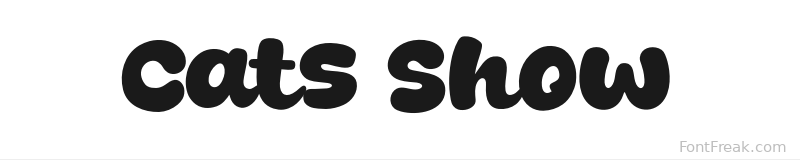
Cats Show
The Cats Show font by Syaf Rizal is a delightful display typeface that embodies a playful and whimsical character, making it ideal for a variety of creative projects. This font features a bold stroke weight with a consistent, rounded shape that ensures high visibility and immediate engagement. Its slightly irregular edges add a charming touch, reminiscent of the playful nature of cats, while maintaining legibility. The spacing is generous, allowing for easy reading, which is a valuable attribute for any design.
Designed to capture attention, the Cats Show font is particularly suited for projects such as children's book covers, pet-related branding, event flyers, and social media graphics. Its fun and inviting aesthetic makes it perfect for promoting cat shows, pet adoption events, or even quirky cafes that cater to animal lovers. Small business owners who wish to create a friendly and approachable brand identity will find this font especially appealing.
The target audience for the Cats Show font includes graphic designers, content creators, and small business owners who are looking to infuse a sense of playfulness into their work. This font is versatile enough to be used in both digital and print formats, making it a valuable addition to any designer's toolkit.
What sets the Cats Show font apart is its unique blend of charm and functionality. It stands out in a sea of standard fonts, offering a distinctive personality that can elevate any project. By opting for the Cats Show font free download, designers can explore the endless possibilities this typeface brings to their creative endeavors, ensuring their work is not just seen but remembered.